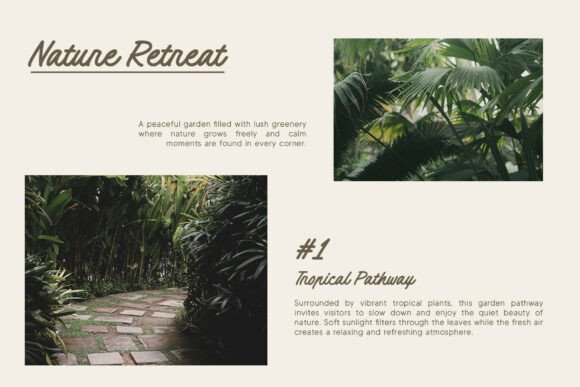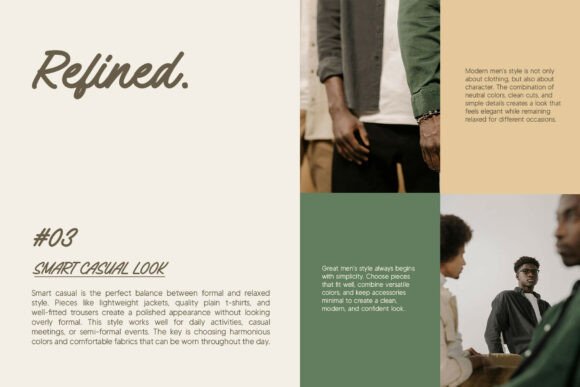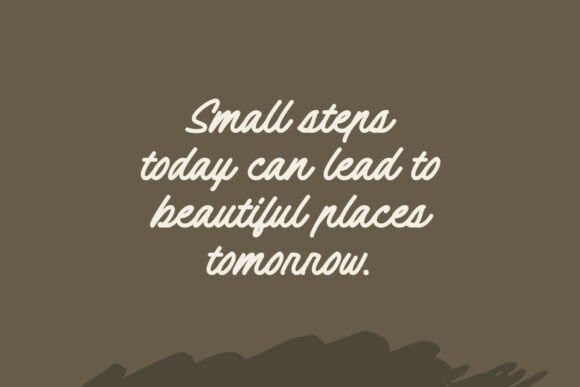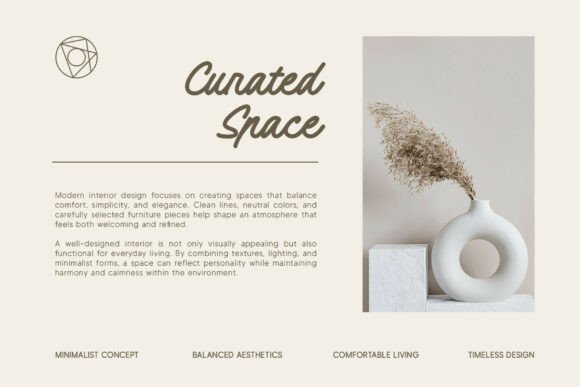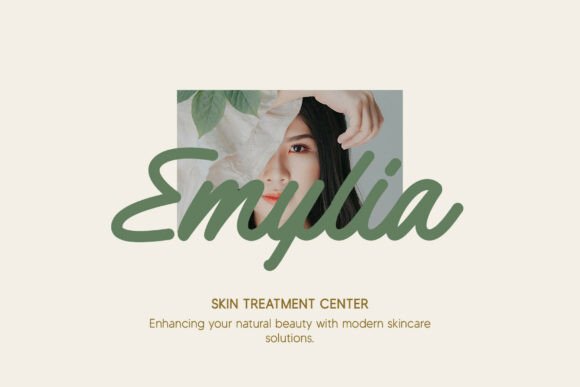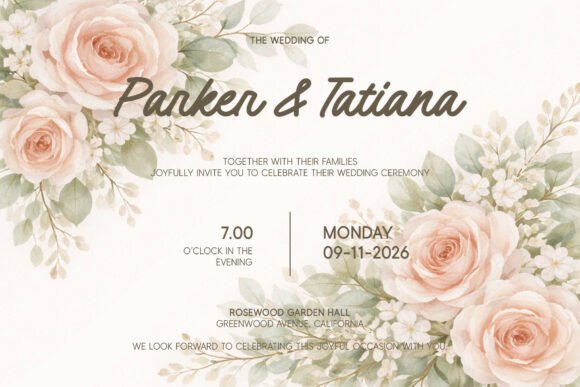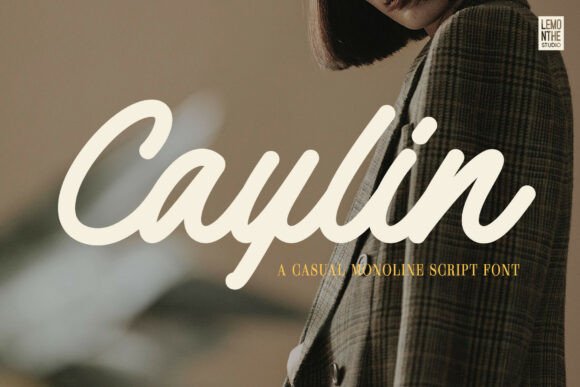
Introducing Caylin Font: The Epitome of Modern Handwritten Elegance
In the world of typography, few fonts manage to strike a balance between elegance and approachability. Caylin Font is one such remarkable typeface that embodies the essence of modern handwritten aesthetics. This casual monoline script font is designed to bring a smooth and natural feel to your designs, making it an excellent choice for creatives looking for a refined yet effortless look.
The Characteristics of Caylin Font
Caylin Font boasts a unique set of characteristics that set it apart from other script fonts. Its flowing strokes and balanced letterforms create a clean yet expressive appearance, making it easy to read while still exuding warmth and style. The consistent line weight gives it a modern touch, perfect for designs that aim to feel approachable and effortlessly elegant. This harmonious blend of traditional and contemporary elements makes Caylin an ideal choice for a wide range of design projects.
One of the standout features of Caylin Font is its versatility. This font works beautifully across a variety of design needs, from branding and logos to social media graphics, invitations, and lifestyle visuals. Whether you’re creating a sophisticated brand identity or a casual social media post, Caylin brings a relaxed and refined character that elevates your designs. Its ability to convey authenticity, softness, and a contemporary handwritten aesthetic makes it especially suitable for projects that aim to connect with audiences on a personal level.
For designers and crafters, finding the right font can often be a daunting task. Caylin Font, however, offers a solution that meets the needs of creatives looking for a stylish and functional typeface. Its clean lines and natural flow make it perfect for:
- Branding and Logos: Create a lasting impression with a font that exudes elegance and approachability.
- Social Media Graphics: Elevate your social media presence with stylish and engaging visuals.
- Invitations: Add a touch of sophistication and warmth to your invitations.
- Lifestyle Visuals: Bring a contemporary and refined aesthetic to your lifestyle visuals.
Why Choose Caylin Font?
With so many fonts available, why choose Caylin? Here are a few compelling reasons:
- Unique Aesthetic: Caylin offers a distinctive look that sets it apart from more traditional fonts.
- Readability: Its clean and balanced letterforms ensure that your message is conveyed clearly.
- Versatility: Suitable for a wide range of design projects, from digital to print.
- Modern Appeal: The consistent line weight gives Caylin a modern touch that’s hard to resist.
Caylin Font is a remarkable addition to the world of typography, offering a perfect blend of elegance, approachability, and modernity. Its unique characteristics, versatility, and readability make it an excellent choice for designers and crafters looking to elevate their designs. Whether you’re aiming to create a sophisticated brand identity or a casual social media graphic, Caylin Font is sure to bring a touch of refined elegance to your projects.